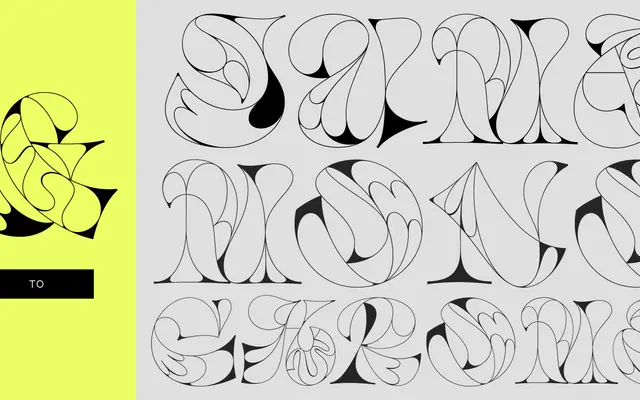
Juma
Naipe Foundry · Cyla Costa · 2022
A single-weight OpenType Color display typeface by Brazilian lettering artist Cyla Costa, built for large-scale use with hypnotic, sculptural letterforms.
Designed by Cyla Costa, Juma comes in Color and Monochrome variants, each with OpenType alternate sets offering Blue Alternates, Green Alternates, an alternate ampersand and an alternate A. The forms draw on organic references — tropical birds, marble — giving individual letters a sculptural presence suited to drop caps, striking headlines or abstract pattern work. It won Gold at the Latin American Design Awards 2022 and was recognised in the Communication Arts Typography Annual 2022.
A single-weight super display typeface released in both Color and Monochrome variants, with highly ornate, sculptural letterforms designed exclusively for large-scale use. Its decorative nature and OpenType Color font technology place it firmly in the display category.